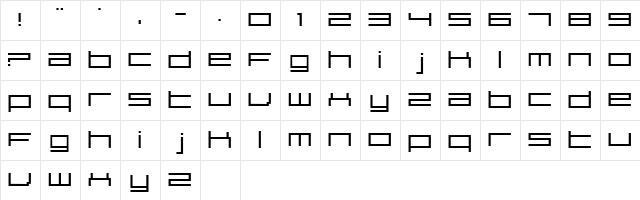
SirClive Regular
Design Context for SirClive Typeface
SirClive takes a measured approach to typography — its balanced proportions and neutral character make it a reliable workhorse for both digital and print work.